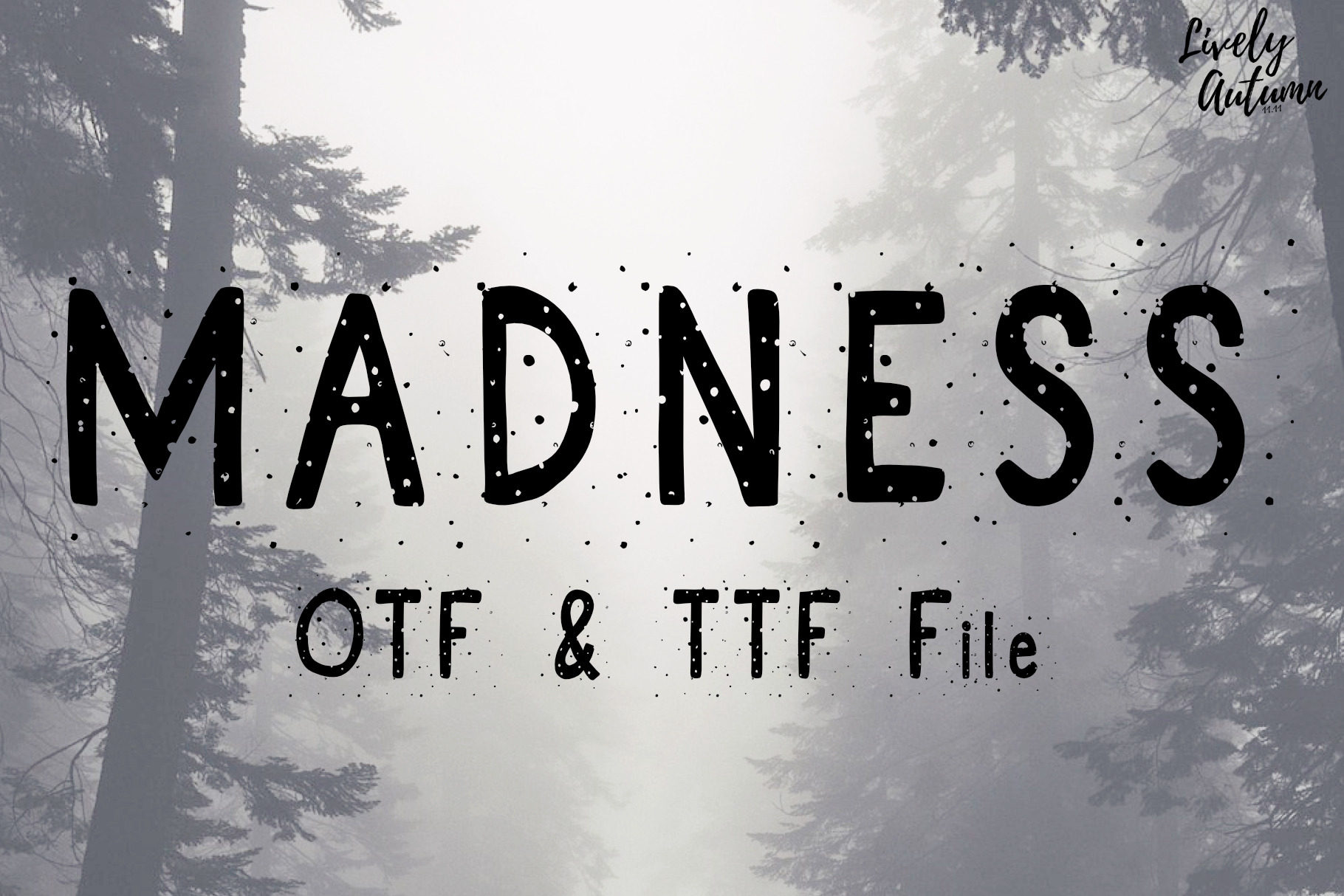
Madness | Stain Sans serif font
Madness Font is a Sans Serif handwritten font with a stain effect. Perfect for your halloween theme project, personal projects and various projects. From invitations to posters, social media graphics, journals, and much more.
- Font includes: uppercase, lowercase, numbers, and punctuation.